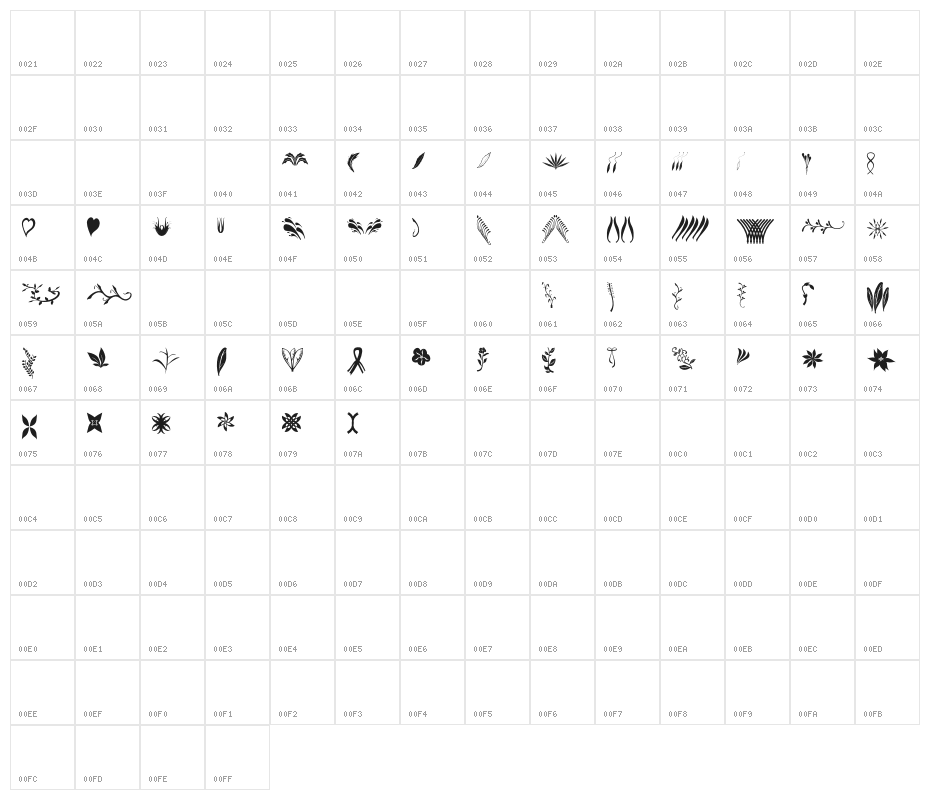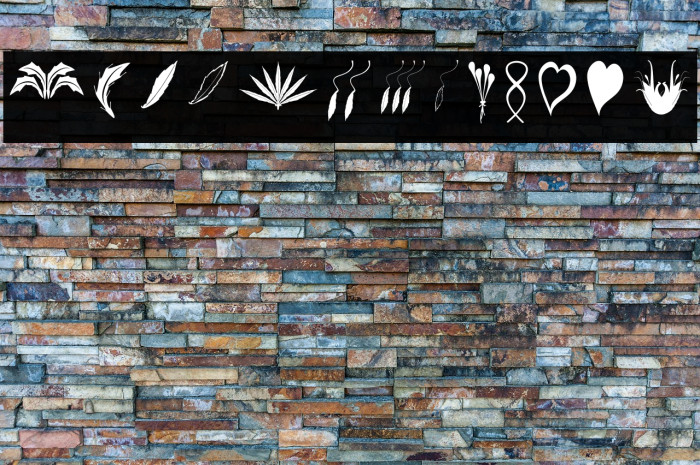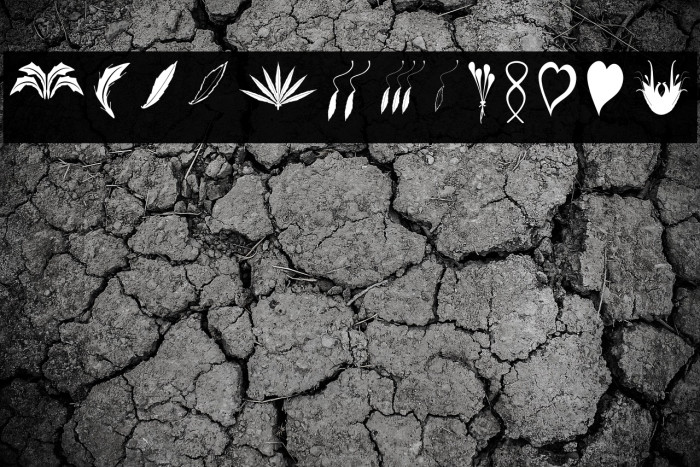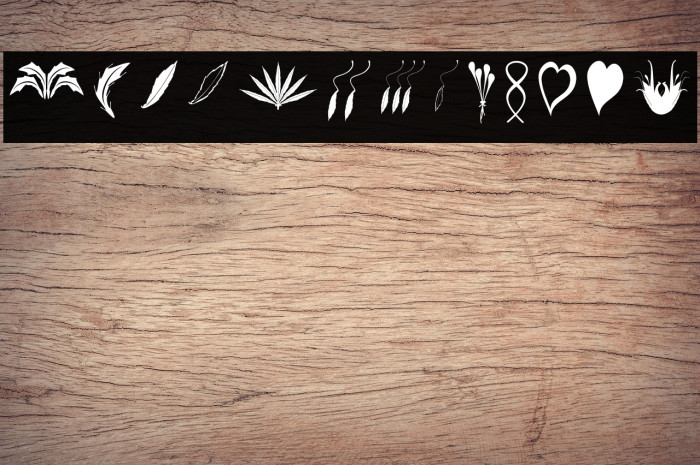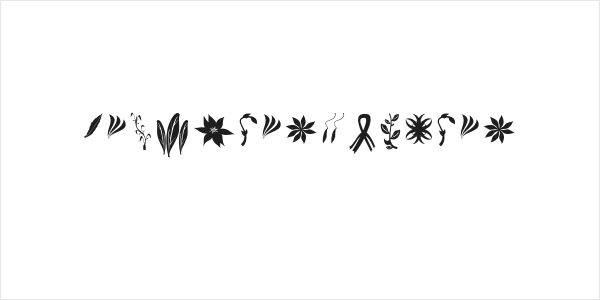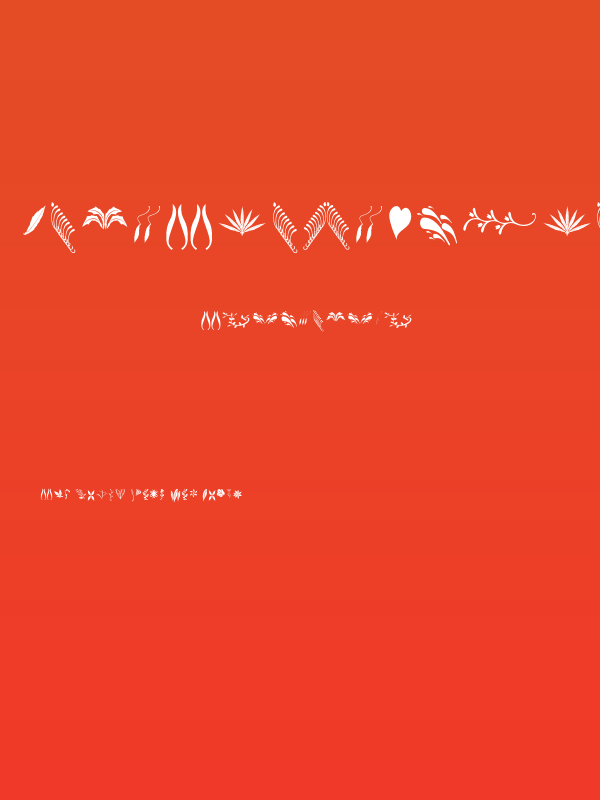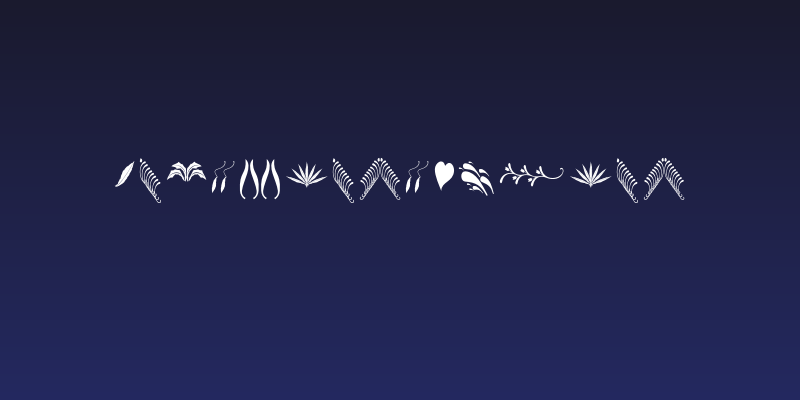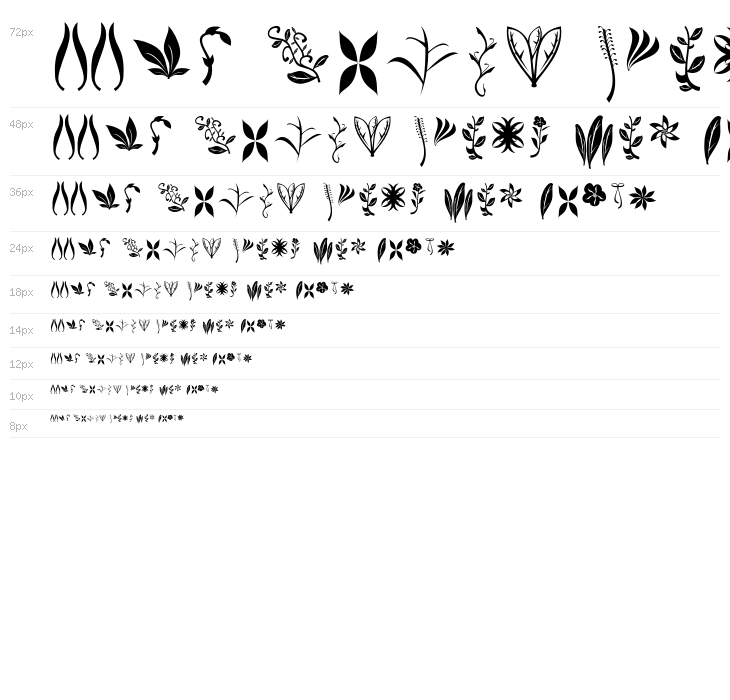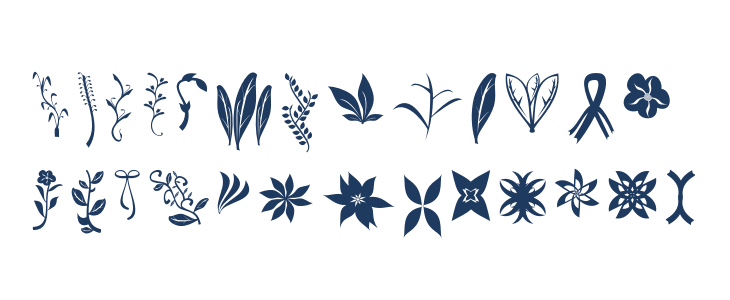
CraftersFlowers Font
CraftersFlowers Description
A decorative dingbat font featuring a variety of stylized floral and botanical motifs, including leaves, flowers, vines, and abstract plant shapes, rendered in solid black silhouettes with varying levels of detail and complexity.
| Overall Style | Decorative, Playful, Nature-inspired |
| Use Case | Decorative elements, Craft embellishments, Thematic dividers, Logos for florists or garden-related b |
| Proposed Projects | Greeting cards, scrapbooking, invitations, decorative borders, craft projects, digital stickers. |